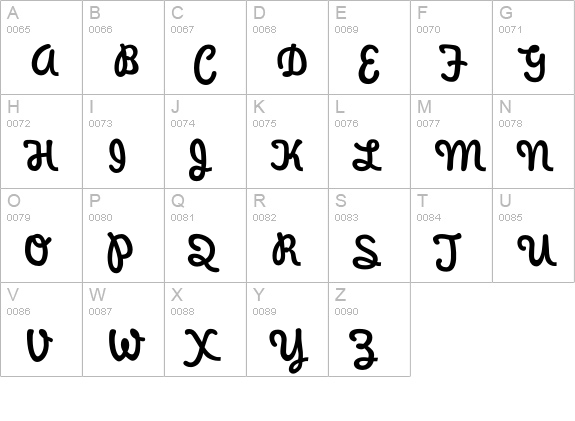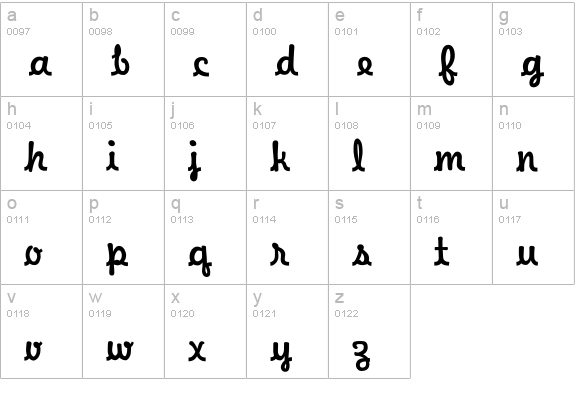
WaveeWeekend-Normal Font Details
WaveeWeekend-Normal is the standard, neutral variant in the WaveeWeekend typeface family \xE2\x80\x94 well suited to general body text, paragraphs, and standard typographic work.
Introducing WaveeWeekend-Normal font, a captivating and versatile typeface that will add a touch of modern elegance to your designs. With its clean lines and balanced proportions, this font effortlessly combines simplicity and sophistication, making it perfect for a wide range of creative projects. WaveeWeekend-Normal font offers a plethora of possibilities, whether you're designing logos, creating stunning branding materials, or crafting eye-catching headlines. Its sleek and contemporary appearance will instantly enhance the visual appeal of any design, leaving a lasting impression on your audience. But that's not all! The best part is that WaveeWeekend-Normal font is absolutely free to download at FontsMarket.com. Yes, you read that right - completely free. You no longer have to worry about breaking the bank to access high-quality fonts. Now, you can effortlessly elevate your designs without spending a dime. Downloading WaveeWeekend-Normal font is a breeze. Simply head over to FontsMarket.com, locate the font, and click on the download button. Within seconds, you'll have this stunning typeface ready to use in your favorite design software. It's that easy. So why wait? Enhance your creative projects with WaveeWeekend-Normal font today. Download it for free at FontsMarket.com and unlock a world of possibilities. Let your designs shine with this remarkable font that combines elegance, versatility, and affordability.